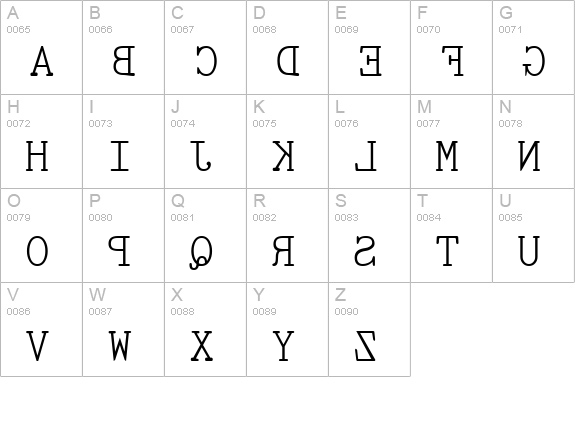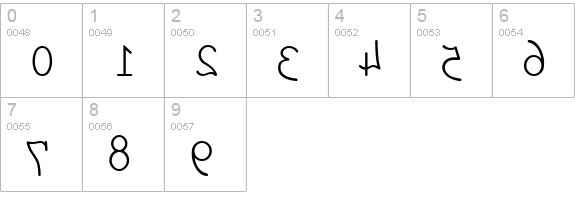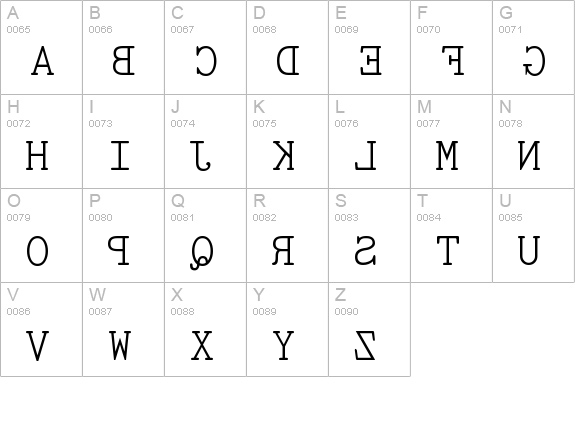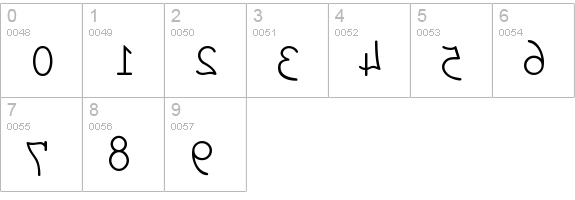
Sdrawkcab Font Details
Introducing the mesmerizing Sdrawkcab font, a truly unique typeface that will turn your typography world upside down. This extraordinary font is designed to captivate and challenge the norms, making it the perfect choice for those seeking to add an innovative twist to their designs. Sdrawkcab font is a stunning display of creativity, as it showcases letters and characters that are beautifully reversed and flipped, creating an intriguing and visually captivating effect. Each character is meticulously crafted to ensure seamless readability, while maintaining the distinctive backward appearance. Whether used for headlines, logos, posters, or any other creative project, Sdrawkcab font will undoubtedly make a bold statement. One of the most remarkable aspects of Sdrawkcab font is that it is freely available to download at FontsMarket.com. This means that you can easily access and utilize this incredible font without any restrictions or limitations. Its availability for free allows designers, artists, and enthusiasts alike to explore and experiment with the font, bringing their wildest typographic visions to life. Embrace the unconventional and let your creativity flow with the Sdrawkcab font. Elevate your designs to new heights with this eye-catching typeface that defies convention and pushes boundaries. Whether you're looking to add a touch of intrigue or simply break away from the ordinary, Sdrawkcab font is the perfect choice for those seeking to make a lasting impression. Download the Sdrawkcab font for free at FontsMarket.com and join the ranks of those who dare to think differently. Unleash your imagination and discover the endless possibilities that this exceptional font offers. Embrace the unconventional, explore the reversed realm of typography, and make a statement that will be remembered. Sdrawkcab font is your passport to a world of design where creative boundaries cease to exist.